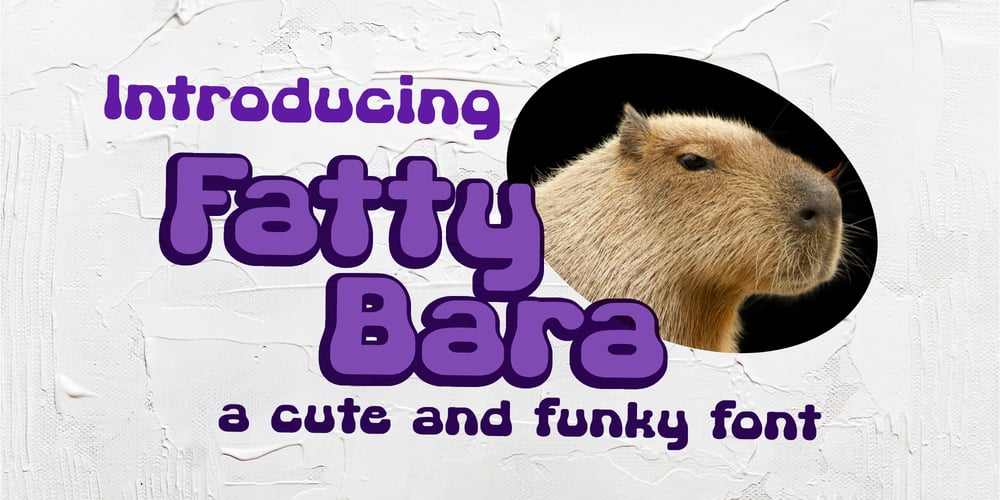
Fattybara Font Family was designed by Monica Tatontos and published by Moncimon. Fattybara contains 1 styles and family package options. Fatty Bara is a distinctive typeface that draws inspiration from the charming and gentle form of a capybara. Each character in this font captures the soft, rounded contours of this beloved animal, resulting in a typeface that is both bold and irresistibly cute. Fatty Bara’s playful, chunky design makes it perfect for projects that require a friendly yet impactful look. Whether you’re designing for children’s products, cute food packaging, or any creative project that needs a touch of warmth and character, Fatty Bara delivers with style and a smile.